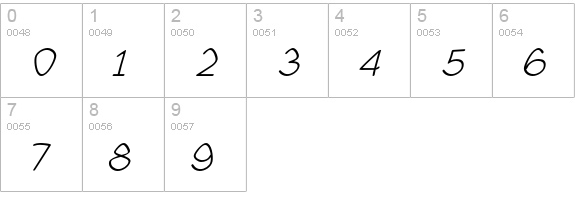
SundsvallItalic is a stylish and elegant font that exudes sophistication and charm. Its sleek lines and delicate curves make it perfect for adding a touch of class to any design project. This font is ideal for use in branding, invitations, packaging, and more. The best part? SundsvallItalic is completely free to download at FontsMarket.com. With its timeless appeal and versatility, this font is sure to become a favorite for designers looking to make a statement. So go ahead and enhance your creations with the beauty of SundsvallItalic today!